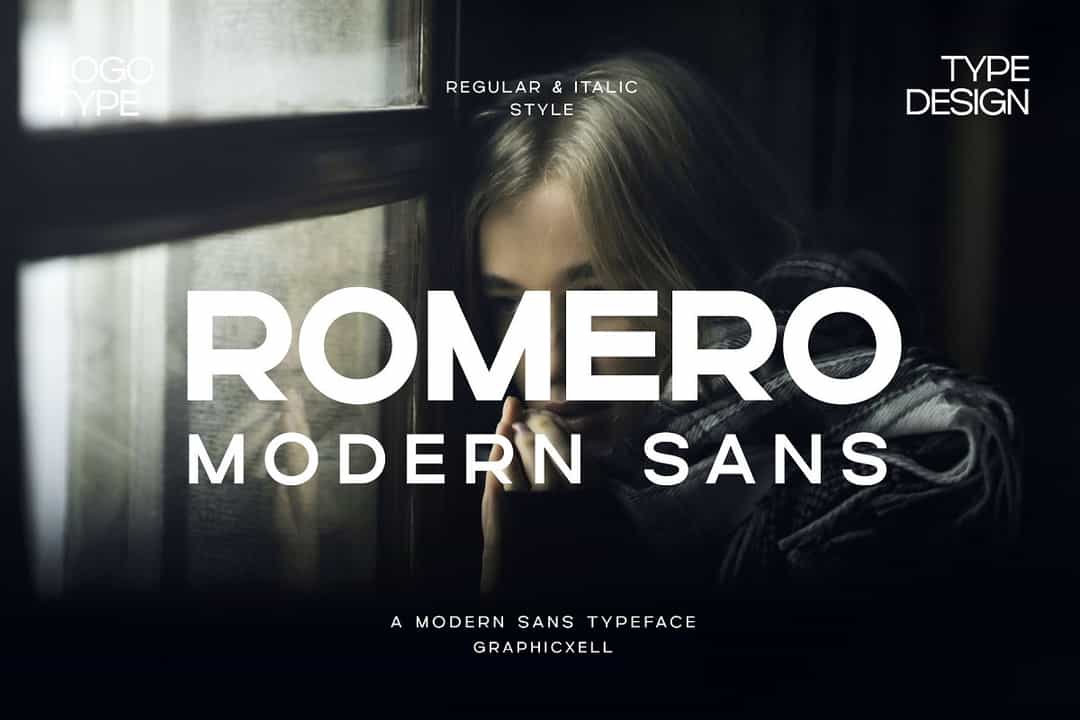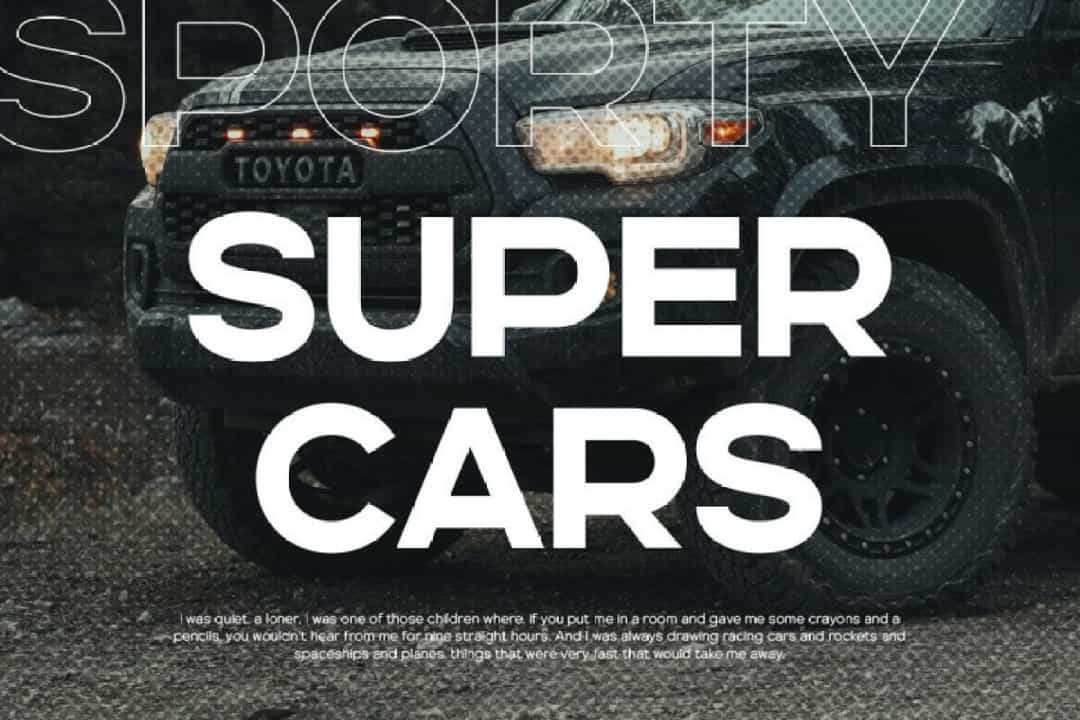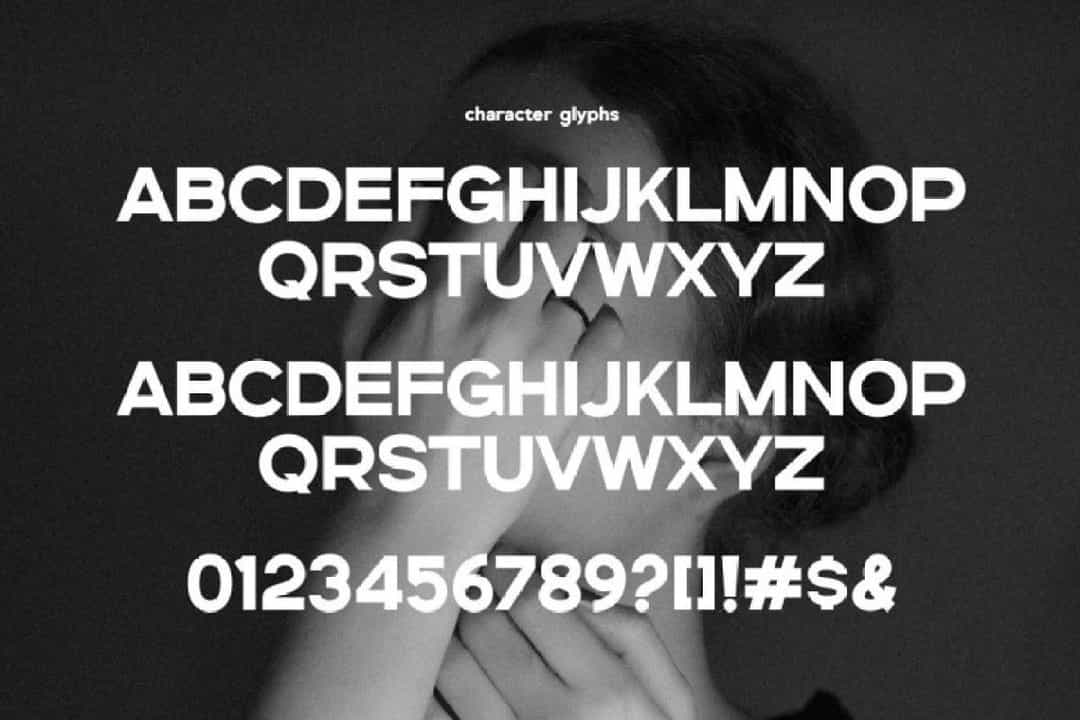
Romero is a modern sans serif font with smooth edges and even weight distribution, creating an inviting feel perfect for headlines or body text – perfect for any task! Ideal!